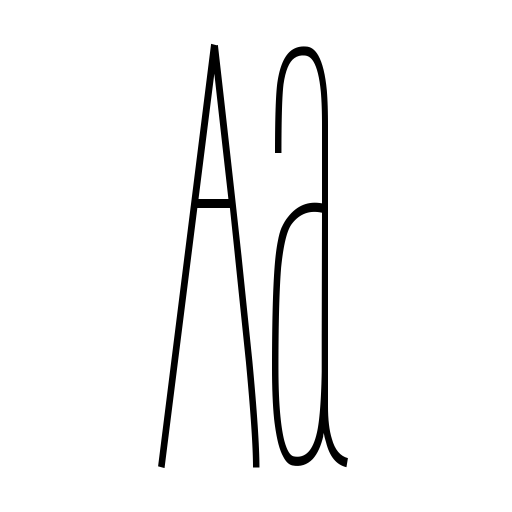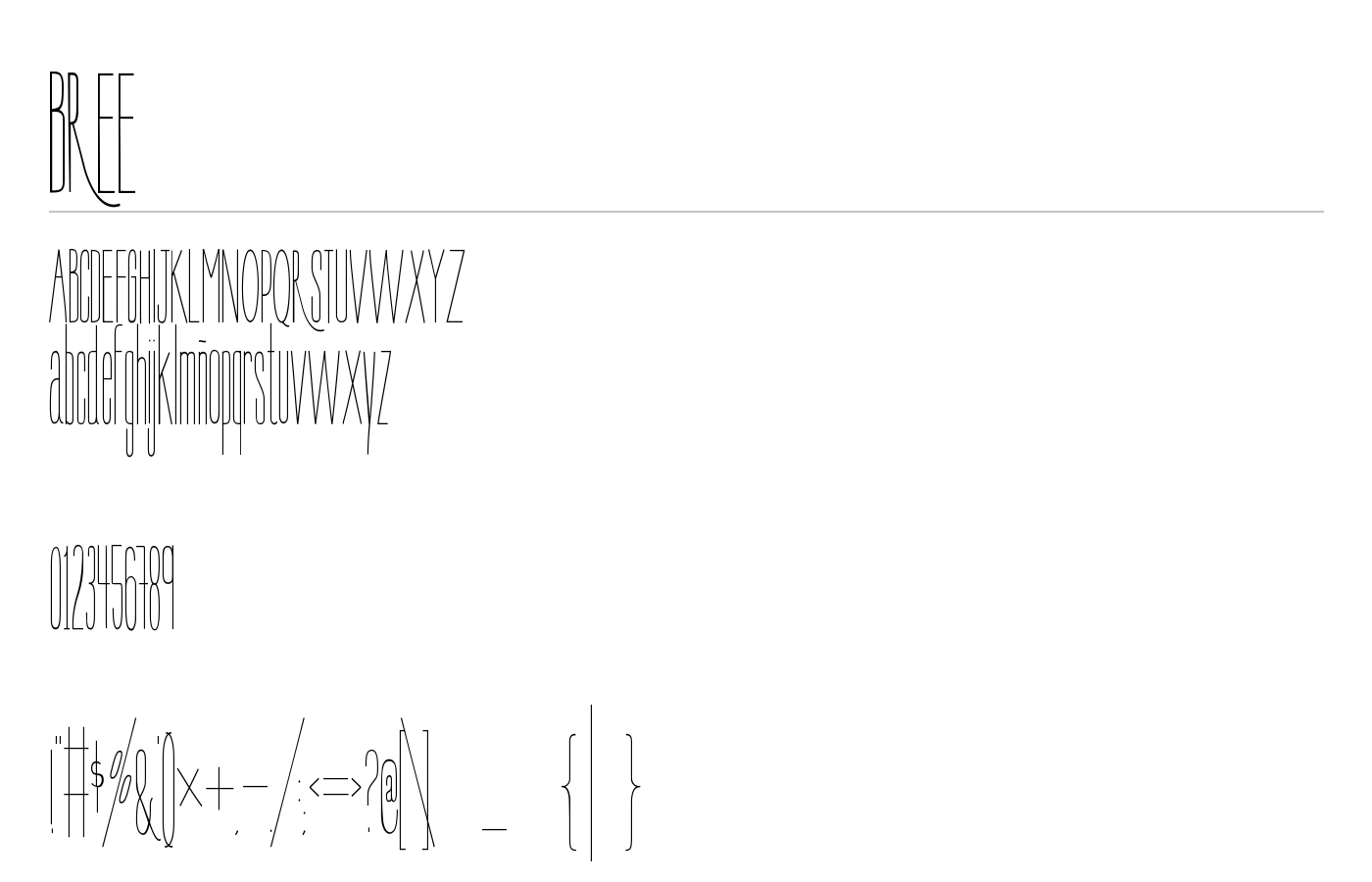
BREE is a slender, elongated sans serif font with a tall x-height and very thin strokes, giving it a delicate and airy feel. Its sharp, narrow letterforms and subtle curves add a sense of elegance and modernity, making it ideal for sophisticated branding, high-fashion headlines, and minimalist editorial layouts where a stylish, refined look is desired. This font’s unique style works best in large sizes to highlight its graceful character shapes and fine details.
BREE Font